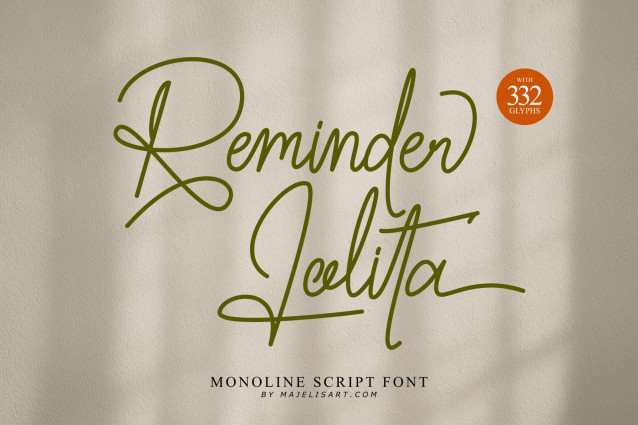
Reminder Lolita Font
Reminder Lolita Font is a smooth and elegant monoline script font that brings a soft, graceful touch to any design project. Its gentle strokes and flowing letterforms make it versatile and suitable for branding, logos, wedding invitations, greeting cards, packaging, posters, social media posts, and more.